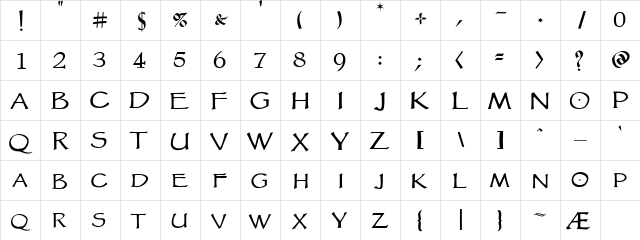
VTCGoblinHandSC Regular
| Designer | WolfBainX |
Design Context for VTCGoblinHandSC Typeface
VTCGoblinHandSC flows with the natural rhythm of handwritten lettering, making it ideal for designs that call for warmth and personal expression.
Font Pairing: Combine VTCGoblinHandSC with a simple geometric sans for maximum contrast — the tension between flowing curves and clean structure is a classic typographic pairing.
Pro Tip: Pair VTCGoblinHandSC with a clean sans-serif for supporting text. The contrast between fluid script and geometric structure creates an elegant typographic hierarchy.